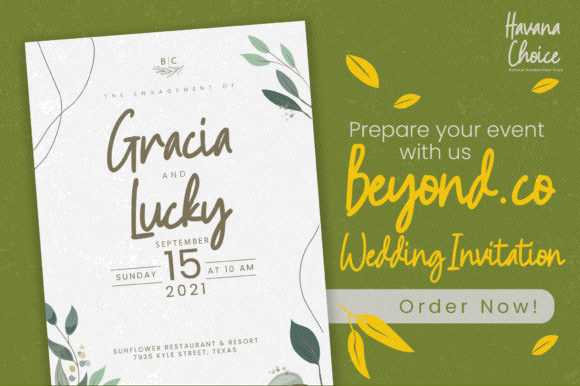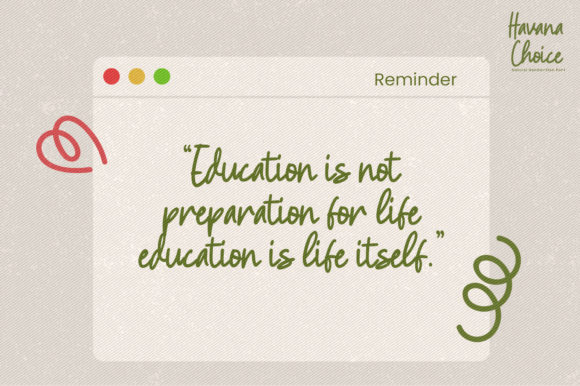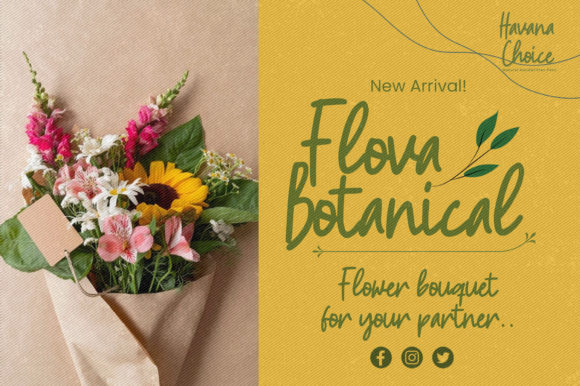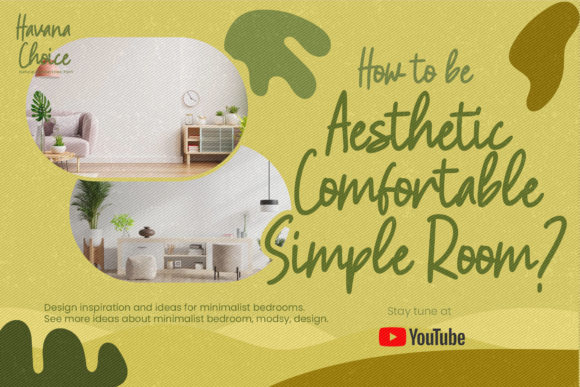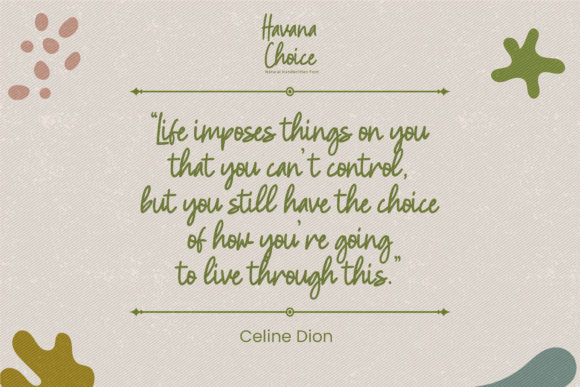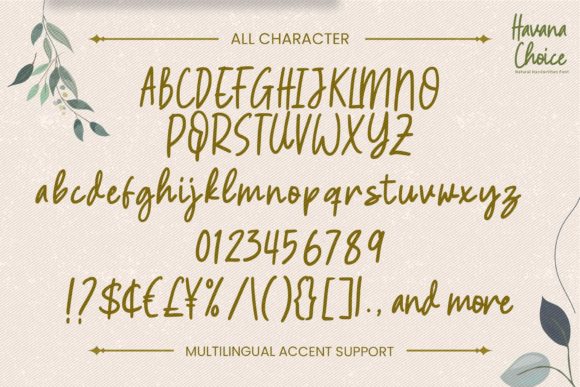
Havana Choice Font: Elevate Your Designs with a Casual and Trendy Touch
In the world of typography, fonts play a crucial role in conveying the tone and personality of a design. For designers and crafters looking for a casual and trendy touch, Havana Choice Font is an excellent option. This beautiful handwritten font is designed to add a neat and natural touch to various design projects, making it a versatile choice for a wide range of applications.
What is Havana Choice Font?
Havana Choice Font is a carefully crafted handwritten font that exudes a sense of elegance and simplicity. Its casual and trendy look makes it perfect for designers who want to add a personal touch to their work. The font’s gentle curves and smooth lines create a soothing visual experience, making it ideal for designs that require a friendly and approachable tone.
Key Features of Havana Choice Font
- Casual and Trendy Look: Havana Choice Font boasts a modern and stylish appearance that will elevate your designs and make them stand out.
- Handwritten Style: The font’s handwritten style adds a personal touch to your designs, making them more relatable and engaging.
- Versatile: Havana Choice Font can be used on a variety of design projects, from digital media to print materials.
- Easy to Read: The font’s clear and legible design ensures that your message is conveyed effectively, making it perfect for body text and headings.
Design Ideas to Use Havana Choice Font
Havana Choice Font is a versatile font that can be used on a wide range of design projects. Here are some ideas to get you started:
- Branding and Packaging: Use Havana Choice Font to create eye-catching logos, labels, and packaging designs that reflect your brand’s personality.
- Social Media Graphics: Add a personal touch to your social media graphics, such as Instagram posts, Facebook covers, and Twitter headers.
- Invitations and Cards: Create beautiful invitations, greeting cards, and thank-you cards with a personal touch.
- Web Design: Use Havana Choice Font as a body font or heading font on your website to create a friendly and approachable atmosphere.
- Crafting and DIY Projects: Add a touch of elegance to your crafting and DIY projects, such as sewing patterns, knitting designs, and paper crafts.
Why Choose Havana Choice Font?
With so many fonts available, why choose Havana Choice Font? Here are a few reasons:
- Unique and Exclusive: Havana Choice Font is a unique and exclusive font that will help your designs stand out from the crowd.
- High-Quality Design: The font is designed with high-quality craftsmanship, ensuring that it looks great on any device or medium.
In conclusion, Havana Choice Font is a beautiful and versatile handwritten font that can elevate your designs and add a casual and trendy touch. Its gentle curves and smooth lines create a soothing visual experience, making it perfect for a wide range of design projects. Whether you’re a designer or crafter, Havana Choice Font is an excellent choice for anyone looking to add a personal touch to their work.